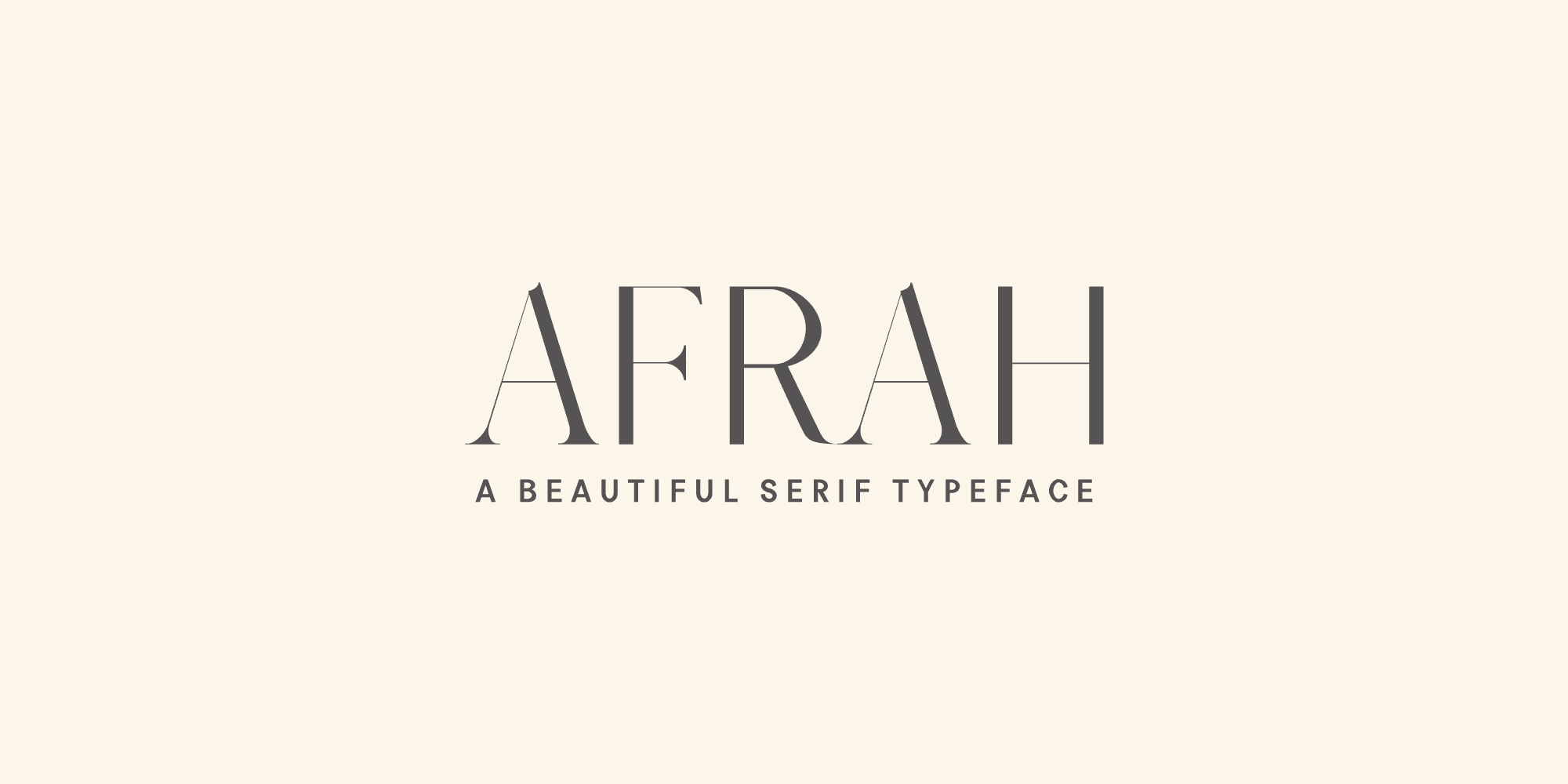
Afrah Font is ideal for joyful celebration campaigns, wedding festivity materials, happiness coaching services, positive lifestyle branding, cheerful event planning, festive cultural projects, uplifting spiritual organizations, joyous family celebrations, delightful children's products, and blissful applications that celebrate the pure essence of joy and heartfelt happiness in life's most precious moments.
What makes Afrah Font truly exciting is its radiant embodiment of pure joy and celebratory happiness that captures the infectious energy and heartwarming spirit of life's most beautiful and meaningful celebrations. This exceptional typeface combines festive elegance with genuine warmth, featuring joyful letterforms and celebratory character that convey both authentic happiness and sophisticated celebration. The font's joyous personality and celebration-focused design make it perfect for brands seeking to communicate genuine happiness, festive spirit, and the transformative power of joy that brings people together in celebration of life's most precious and meaningful moments.
The Afrah Font family includes multiple weights and styles: Light, Regular, Medium, Bold, and Celebration variations designed for maximum joyful impact. Each family member maintains the distinctive festive character while offering flexibility for diverse celebration applications and happiness-focused branding systems. The comprehensive character set supports joyful typography needs and celebratory design elements, making it suitable for international celebration communications.